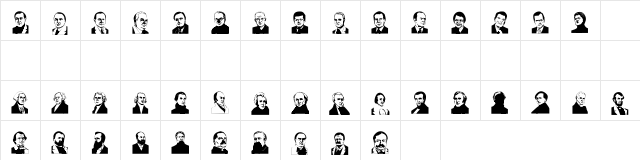
MrPresident Regular
Design Context for MrPresident
MrPresident is a composed and adaptable typeface that performs quietly and consistently across a wide range of design contexts.